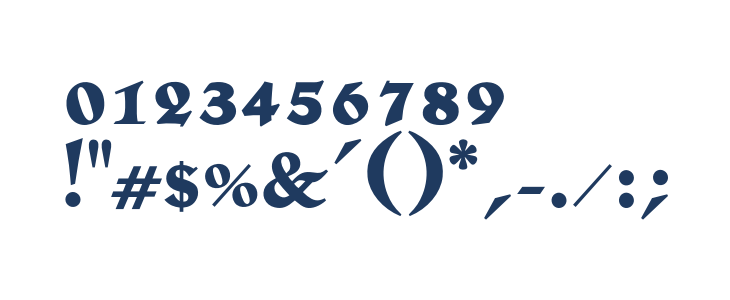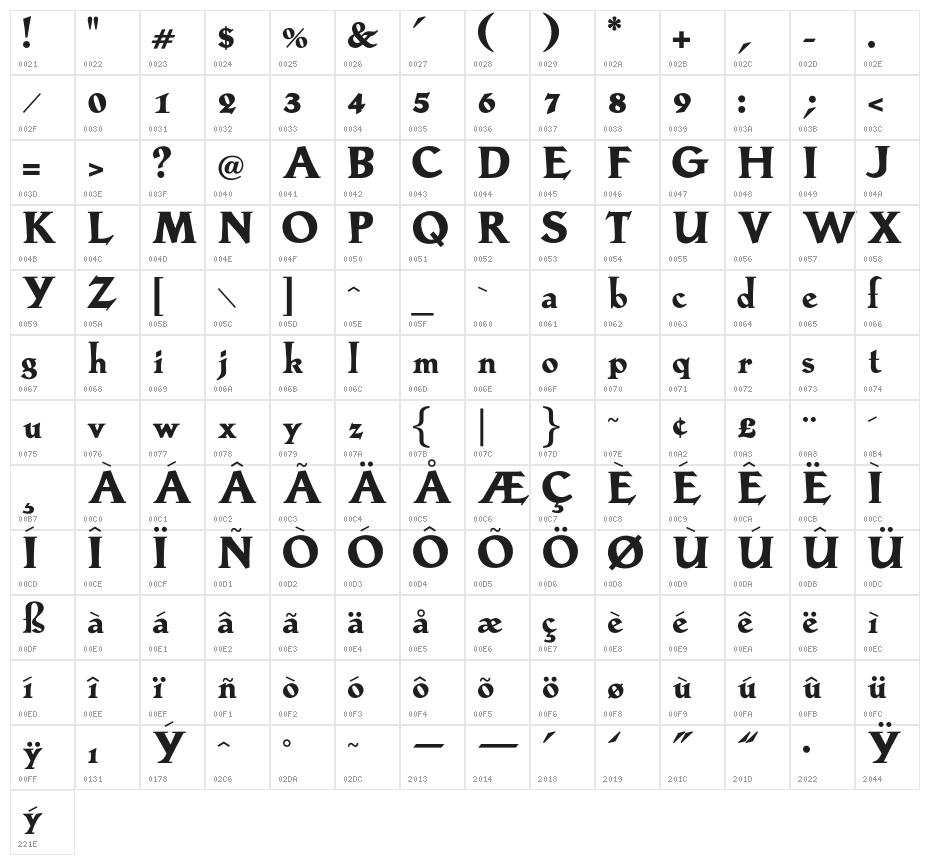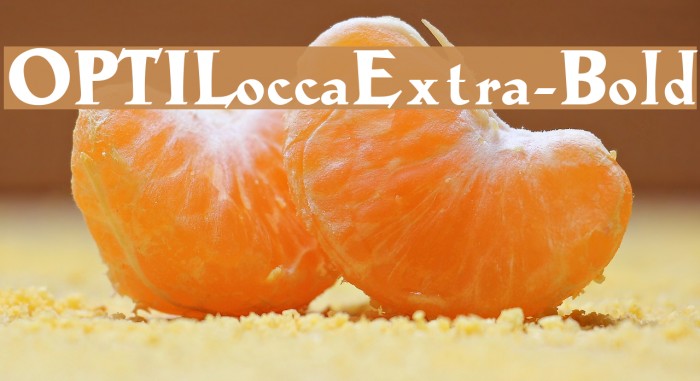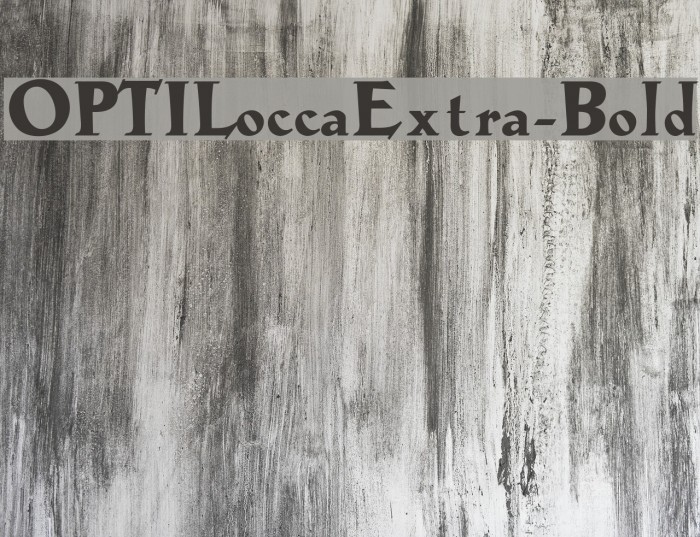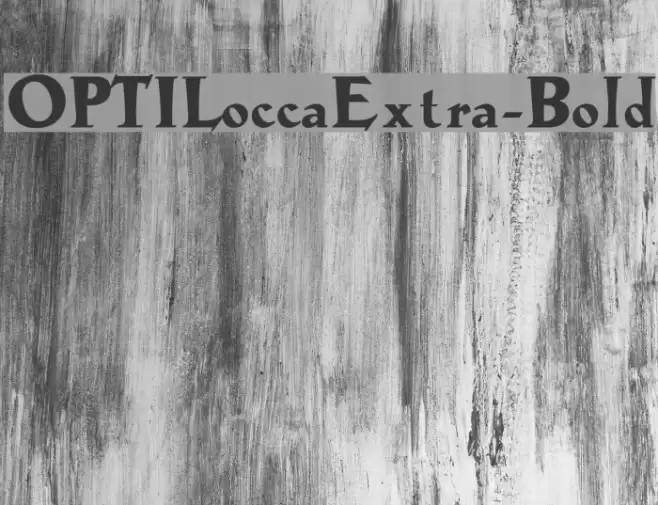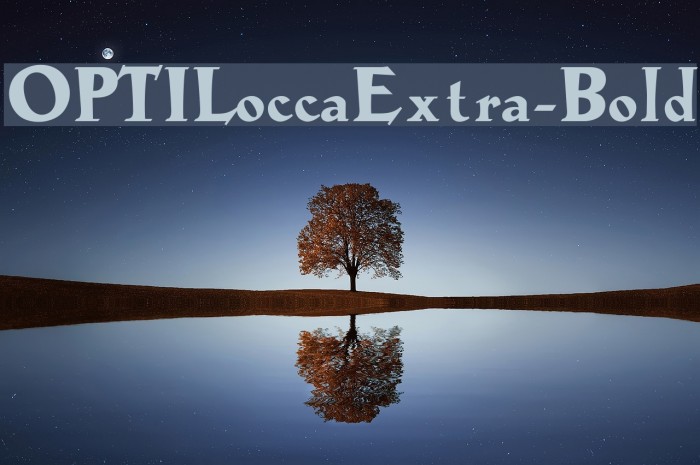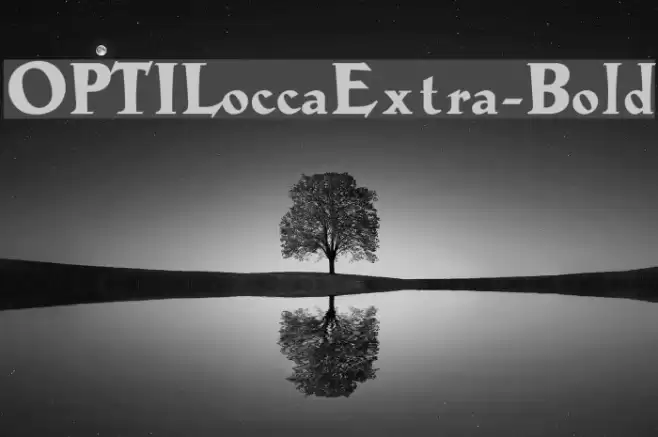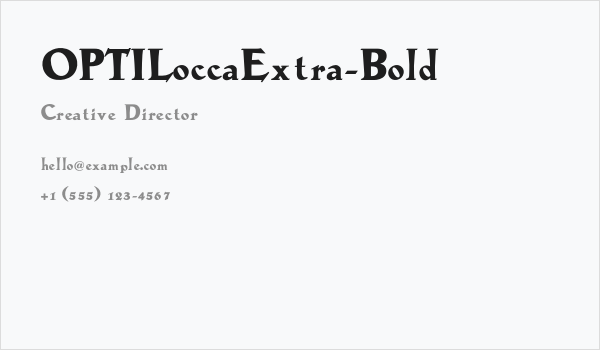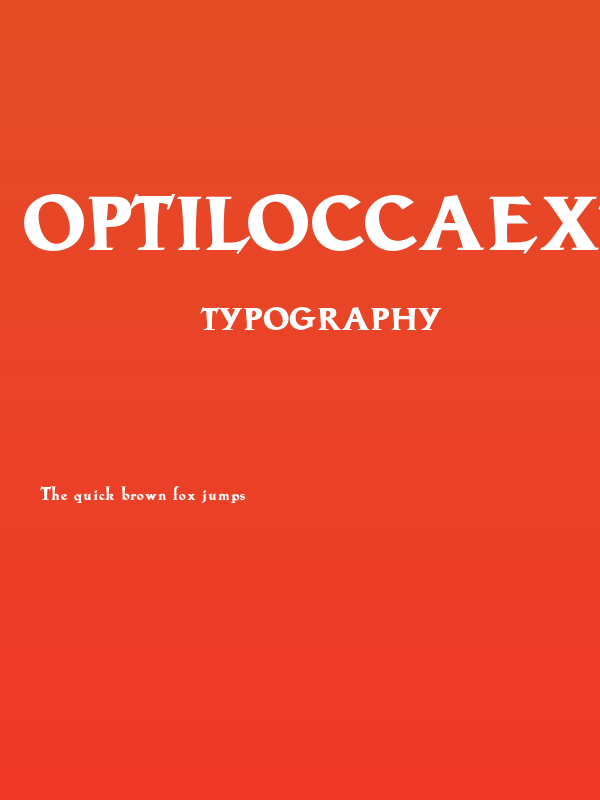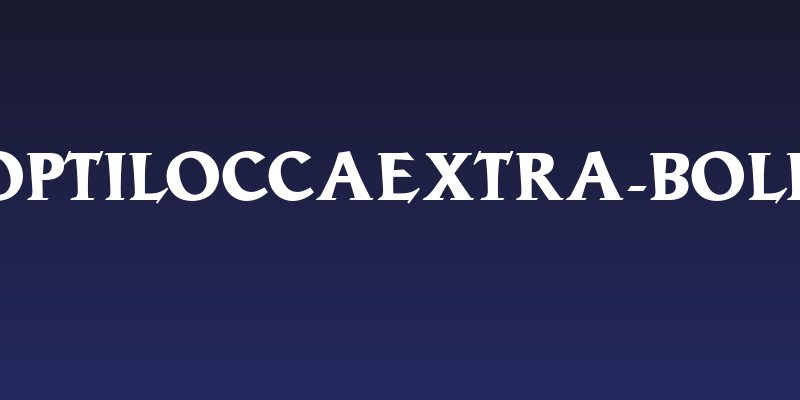
OPTILoccaExtra-Bold Font
OPTILoccaExtra-Bold Description
This font features a bold and dynamic style with a strong presence. The uppercase letters are characterized by sharp, angular serifs and a slightly condensed form, giving them a commanding appearance. The lowercase letters maintain a consistent style, with unique curves and angles that add a touch of elegance. The numerals are bold and easily readable, matching the overall aesthetic of the font. Special characters are designed with the same attention to detail, ensuring they integrate seamlessly with the rest of the typeface. This font is ideal for making a statement, with its high contrast and distinctive style.
| Proposed Projects | Perfect for headlines, branding, posters, and any project requiring a strong visual impact. |